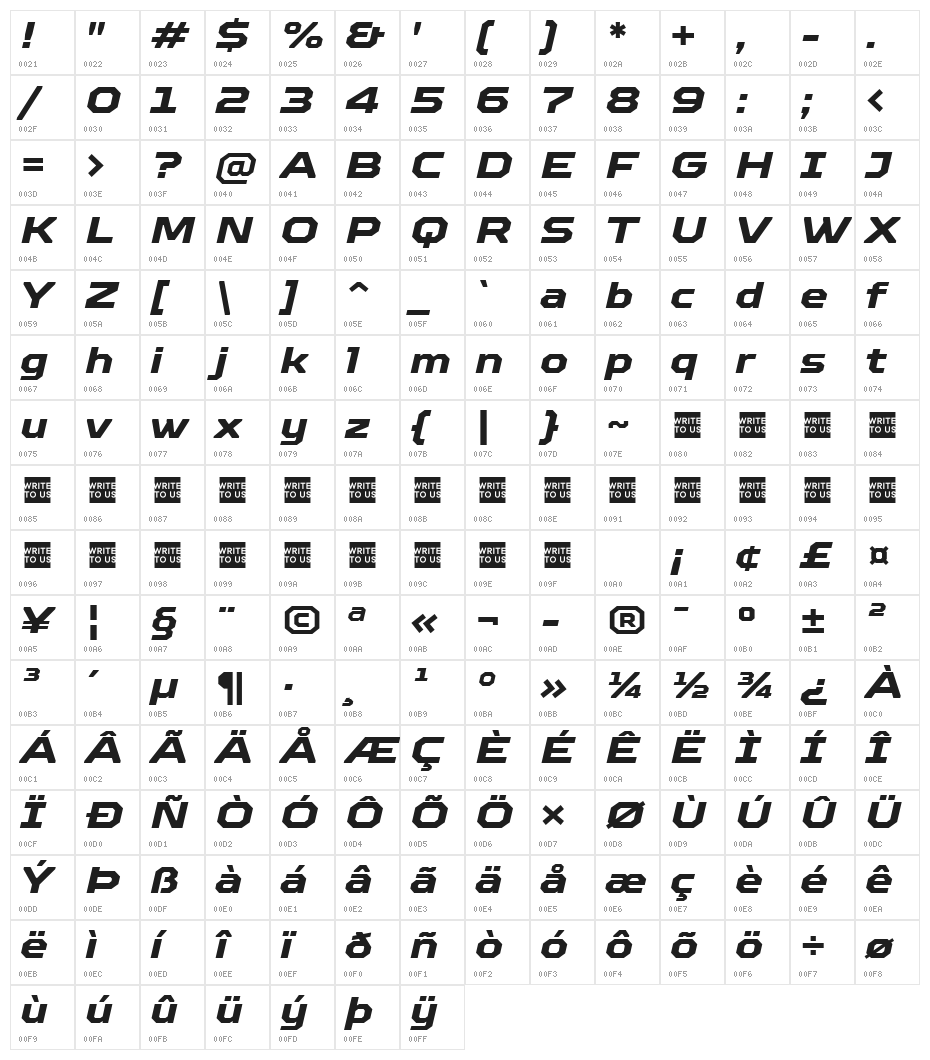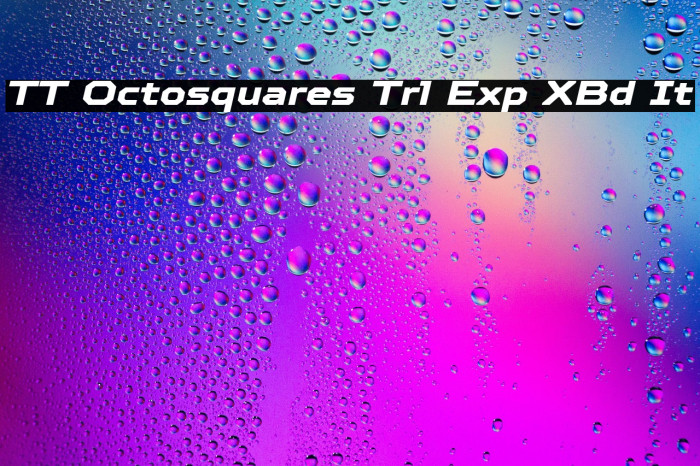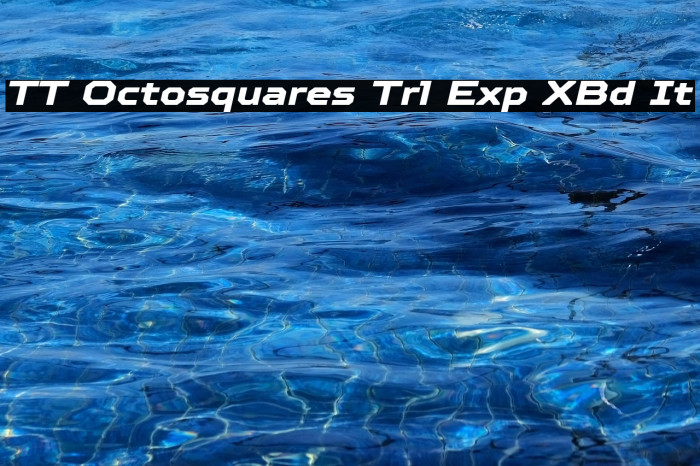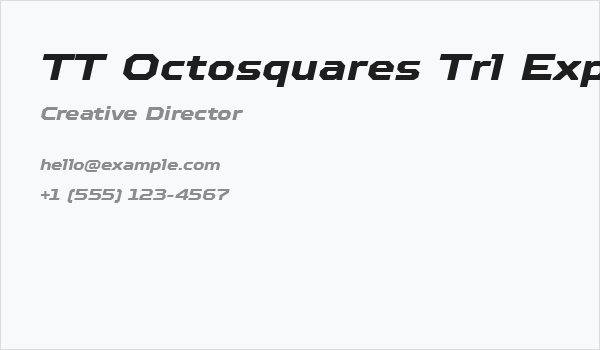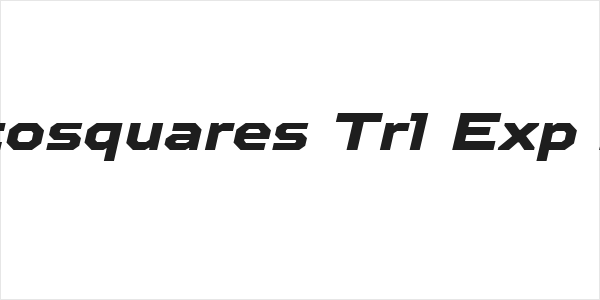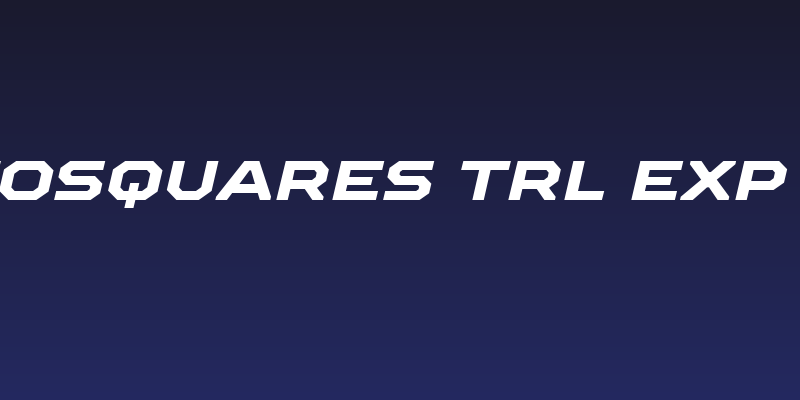
TT Octosquares Trl Exp XBd It Font
TT Octosquares Trl Exp XBd It Description
This font features a bold and dynamic style with a distinctly modern and geometric appearance. The characters are designed with sharp angles and a slightly italicized slant, giving them a sense of motion and energy. The uppercase and lowercase letters maintain a consistent design language, emphasizing a futuristic and tech-inspired aesthetic. The numbers and special characters are crafted to match the overall style, ensuring uniformity across all glyphs. The font's expanded width and medium contrast in stroke thickness contribute to its readability while maintaining a strong visual impact.
| Overall Style | Modern, Futuristic |
| Use Case | Logos, Headlines, Branding |
| Proposed Projects | Ideal for technology branding, futuristic designs, sports team logos, and dynamic advertising materials. |